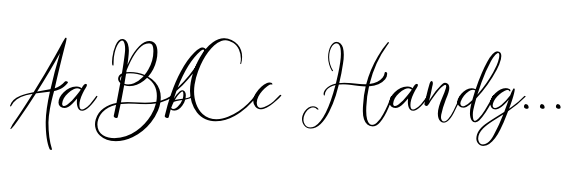
Angellyne
by Haksen
The Angellyne Font Family was designed by Sarwo Edhi Prayitno and published by Haksen. Angellyne contains 1 styles. More about this family
Angelline Script Font!
If you are needing a touch of casual chic calligraphy for your designs, this font was created for you!
Angellyne was built with OpenType features and includes beginning and ending swashes, alternate characters for both lowercase and uppercase letters, loads of different swash alternates for lowercase letters, numbers, punctuation, alternates, ligatures and it also supports other languages :) with many glyphs!
• Multilingual Support is included for Western European Languages